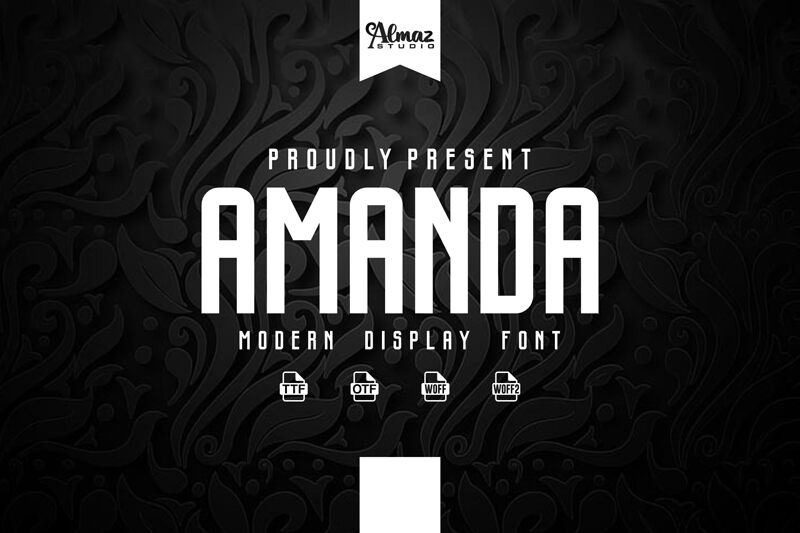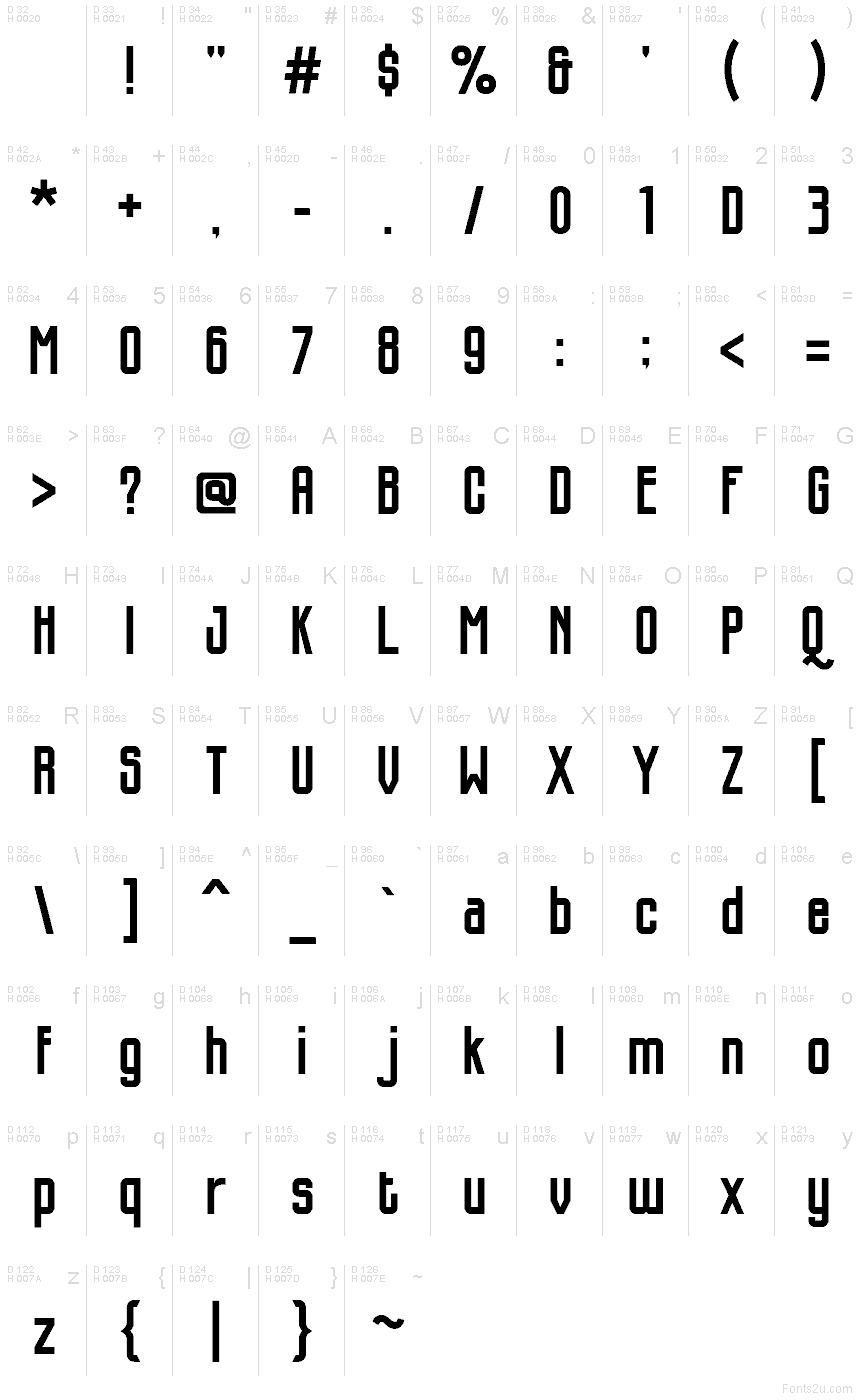
Amanda font by Almaz Studio is a free sans serif typeface with a rugged, squared backbone and softened corners. Its tall, even strokes and boxy counters feel like cutouts, giving letters a sturdy, modular rhythm that stays crisp on screen and in print. The result is retro‑futuristic without fuss-bold enough to anchor a wordmark, yet clean enough to stack into tight grids.
Using Amanda, headlines snap into place for gaming logos, sci‑fi posters, tech branding, esports overlays, gadget packaging, and event flyers. This free font holds weight at large sizes; add a touch of tracking for smaller captions. For body copy, pair it with a neutral grotesk or a light humanist sans to keep layouts readable while Amanda brings the punch.